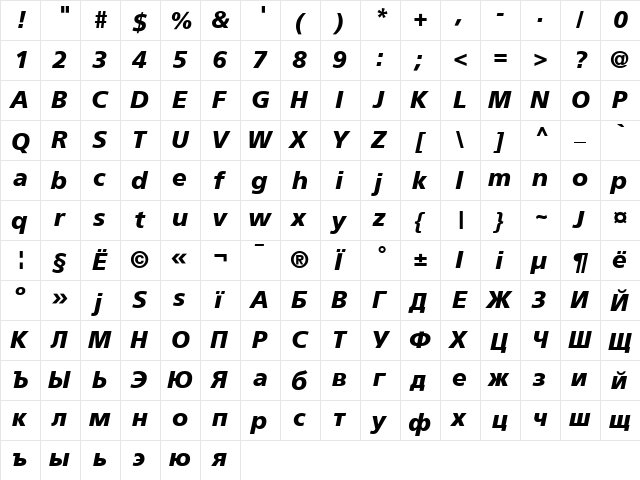
font18 Bold Italic Font Preview
font18 Bold Italic
font18 Bold Italic Font Details
Design Context for font18 Typeface
font18 is a composed and adaptable typeface that performs quietly and consistently across a wide range of design contexts. The dynamic lean of this cut emphasises speed and emphasis in any layout. The heavy weight commands attention and anchors typographic hierarchies.
Pro Tip: Try font18 for annotation and caption copy alongside an upright companion — the contrast in angle creates a dynamic but ordered typographic system.